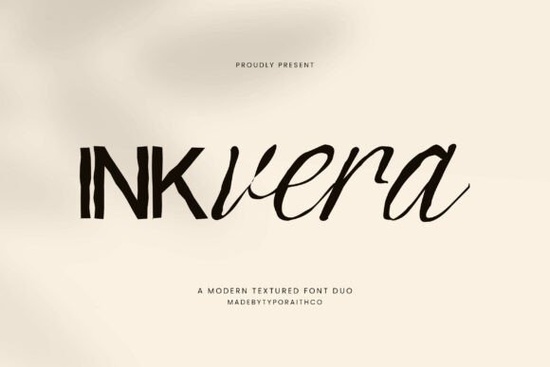
Designers, crafters, and small business owners often look for fonts that add personality without complicating their workflow. The Inkvera Font is a great example of a typeface that balances modernity with a handcrafted feel. This font duo combines a bold, textured sans-serif with a flowing script, making it ideal for a wide range of creative projects. Whether you're working on branding, packaging, or social media graphics, Inkvera offers the flexibility to create visually striking designs.
The bold sans-serif in the Inkvera Font has subtle rough details that give it a unique, handmade quality. These organic strokes add warmth and character, making it stand out from more rigid digital fonts. The accompanying script version is elegant and graceful, offering a perfect contrast to the bold style. This combination allows for dynamic typography that can draw attention without overwhelming the viewer.
One of the key strengths of Inkvera is its versatility. It works well for both digital and print applications, making it a valuable addition to any designer’s toolkit. For instance, it’s commonly used in wedding invitations, where the mix of strong and delicate elements can reflect the tone of the event. It also shines in editorial layouts, where visual interest is essential but readability must remain high.
How does Inkvera compare to other fonts?
If you’re looking for similar styles, you might consider other fonts like Crossing Texture Font, which also features a handcrafted aesthetic. Or Daisy Pop Font, known for its playful yet refined look. For something more dramatic, Spooky Buddy Font adds a whimsical touch, while Blackthorn Font brings a more rugged, industrial vibe. Each of these fonts has its own unique appeal, but Inkvera stands out for its balance of strength and elegance.
When choosing a font, it’s important to consider how it will be used. Inkvera is especially useful for projects that require a personal touch, such as custom merchandise or branded content. Its bold style ensures visibility, while the script version adds a sense of refinement. This makes it a go-to choice for those who want to maintain a cohesive visual identity across different platforms.
What makes Inkvera suitable for different design needs?
The contrast between the two styles in Inkvera allows for creative flexibility. You can use the bold version for headings and titles, while the script version works well for captions or taglines. This duality helps in creating visual hierarchy without needing multiple typefaces. It’s also beneficial for print-on-demand sellers who want to offer unique designs without overcomplicating their selection.
For small businesses, Inkvera can help establish a brand’s personality. A strong, textured font can convey confidence, while a flowing script adds a touch of sophistication. This combination is especially effective for logos, where simplicity and impact are key. The font’s natural look also appeals to creative hobbyists who appreciate handmade aesthetics in their work.
Final thoughts on using Inkvera Font
Inkvera Font is a practical choice for anyone looking to add a handcrafted feel to their designs. Its combination of bold and script styles makes it adaptable to various projects, from branding to social media. The font’s subtle textures and organic strokes ensure it stands out while maintaining readability. Whether you're a designer, crafter, or small business owner, Inkvera offers a versatile solution that can enhance your creative work.
If you’re new to using textured fonts, start by experimenting with different combinations. Use the bold style for emphasis and the script for a more refined touch. As you become more familiar with the font, you’ll find new ways to incorporate it into your designs. Always test the font in different sizes and formats to ensure it works well for your specific needs.
Consider adding Inkvera to your collection if you’re looking for a font that blends strength with elegance. It’s a reliable choice for both professional and personal projects, offering a unique handmade quality that many digital fonts lack. With its wide range of applications, it’s easy to see why designers continue to choose Inkvera for their creative work.
- Try using the bold style for headlines and the script for supporting text.
- Test the font in different sizes to ensure readability.
- Use the script version to add a personal touch to invitations or cards.